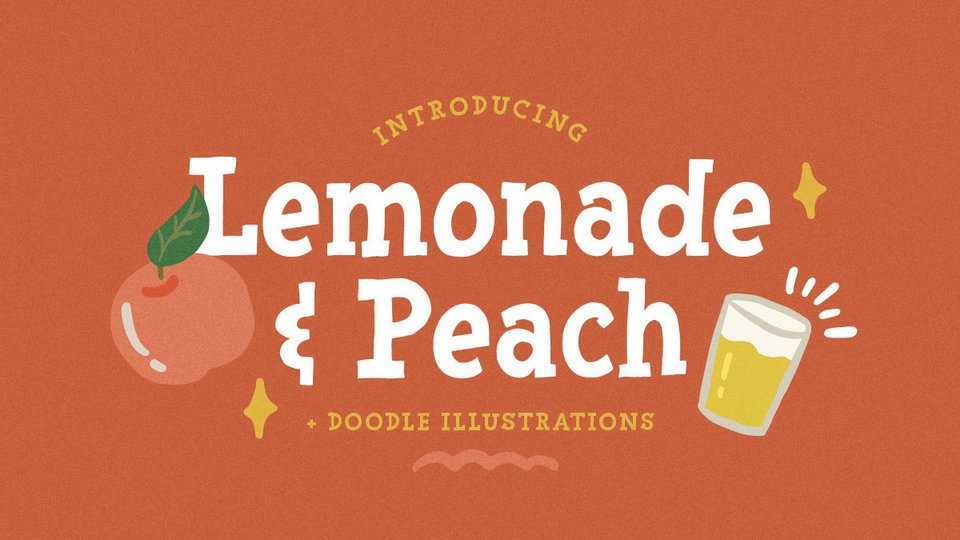
Download Lemonade & Peach font, a fresh and fun display typeface. Lemonade & Peach is perfectly made to be applied especially in storybook covers, comics, cartoon characters, kids theme design, and more.